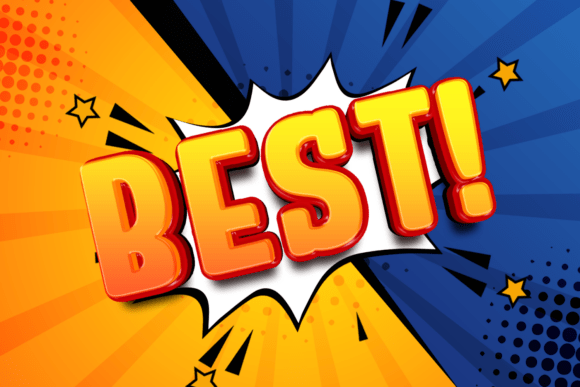
Ask Boy Font
Presenting the Ask Boy Font – a product of bold originality and whimsical creativity. A hand-drawn masterpiece, it encapsulates an authentic, clean, and unique aesthetic that is as unique as it is refined. With its smooth and rounded design, this bold display font combines vintage charm with modern sophistication, making it an ideal selection for a diverse range of uses.